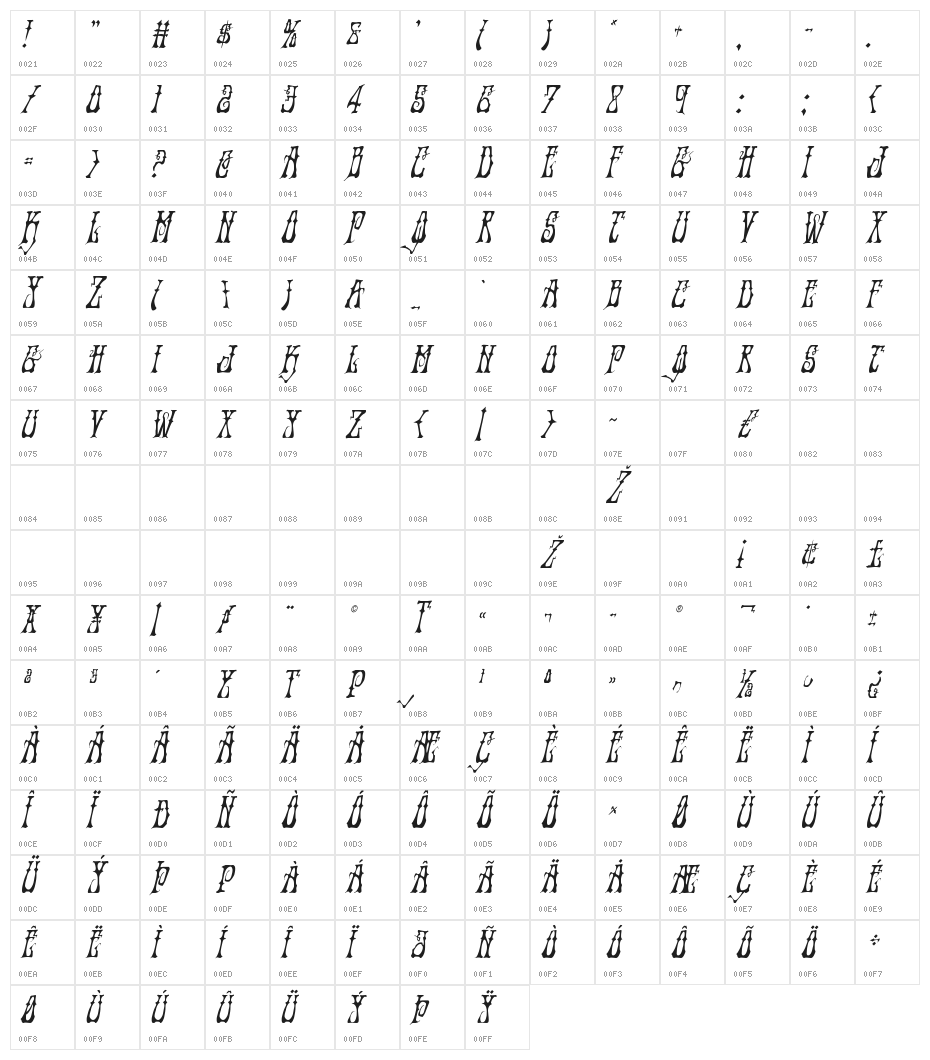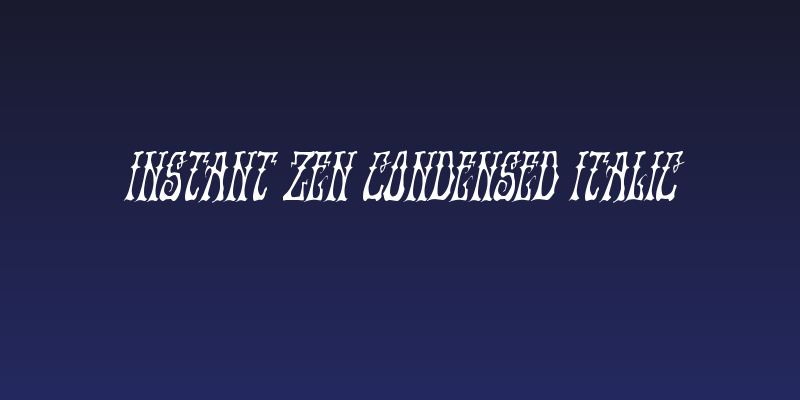
Instant Zen Condensed Italic Font
Instant Zen Condensed Italic Description
This font exhibits a unique and artistic style, characterized by its condensed and italicized form. The letters are elongated with sharp, angular edges, giving it a dynamic and somewhat aggressive appearance. The strokes vary in thickness, providing a medium contrast that enhances its decorative nature. The overall design is reminiscent of calligraphic or gothic influences, making it stand out with its intricate detailing. The numbers and special characters follow the same stylistic approach, ensuring consistency across all glyphs. This font is particularly eye-catching and would be suitable for projects that require a bold and distinctive visual impact.
| Proposed Projects | Ideal for posters, album covers, branding materials, and any project that requires a bold, artistic touch. |